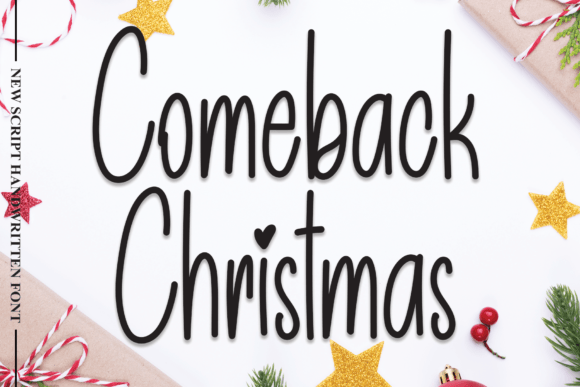
Journey through the realm of visual enchantment with Comeback Christmas, the script font that ignites the flame of creativity within you. Its whimsical strokes dance across the page like delicate snowflakes, capturing the essence of winter's charm. Each letter is a crafted masterpiece, whispering tales of nostalgia and holiday cheer.
Immerse yourself in the world of signature words, where Comeback Christmas reigns supreme. Its elegant curves and playful flourishes lend an air of sophistication to your designs, making them stand out from the mundane. From heartfelt love letters to stunning wedding invitations, this font breathes life into every word, transforming them into visual poetry.
Unleash your inner artist and explore the boundless possibilities of Comeback Christmas. Whether you're a seasoned designer or just starting, this font will guide you effortlessly through your creative endeavors. Its user-friendly nature makes it accessible to all, inviting you to embark on a journey of self-expression and artistic fulfillment.
With Comeback Christmas by your side, you hold the key to unlocking a world of visual allure. Its timeless beauty transcends trends, ensuring your designs remain captivating for years to come. Embrace the magic of this extraordinary font and watch as your creations blossom into masterpieces that leave an indelible mark on the hearts of all who behold them.